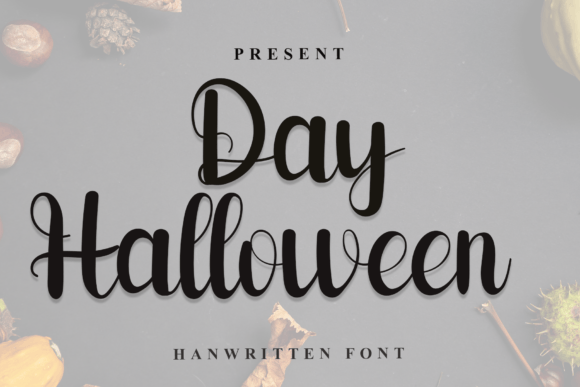
Welcome to the world of Day Halloween, a remarkable script font family, meticulously crafted to cater to the discerning demands of the beauty industry. Immerse yourself in the elegance and charm of Day Halloween, created by the esteemed PiPi Creative.
With its captivating handwritten style, Day Halloween exudes a touch of sophistication while maintaining a modern, fresh vibe. It's the perfect font for beauty professionals seeking to make a lasting impression on their clientele.
Let your imagination soar as you explore the endless creative possibilities with Day Halloween. Design captivating logos that reflect the essence of your beauty brand, create stunning social media posts that grab attention, or craft elegant flyers and brochures that leave a lasting impact.
Day Halloween is not just a font; it's an artistic masterpiece that adds a touch of magic to your beauty-related projects. Its versatility knows no bounds, allowing you to effortlessly transform any design into a visual feast.
So embrace the beauty of Day Halloween and watch your projects blossom into masterpieces. Let this exquisite font elevate your brand's identity, captivate your audience, and leave an enduring impression on the world of beauty.